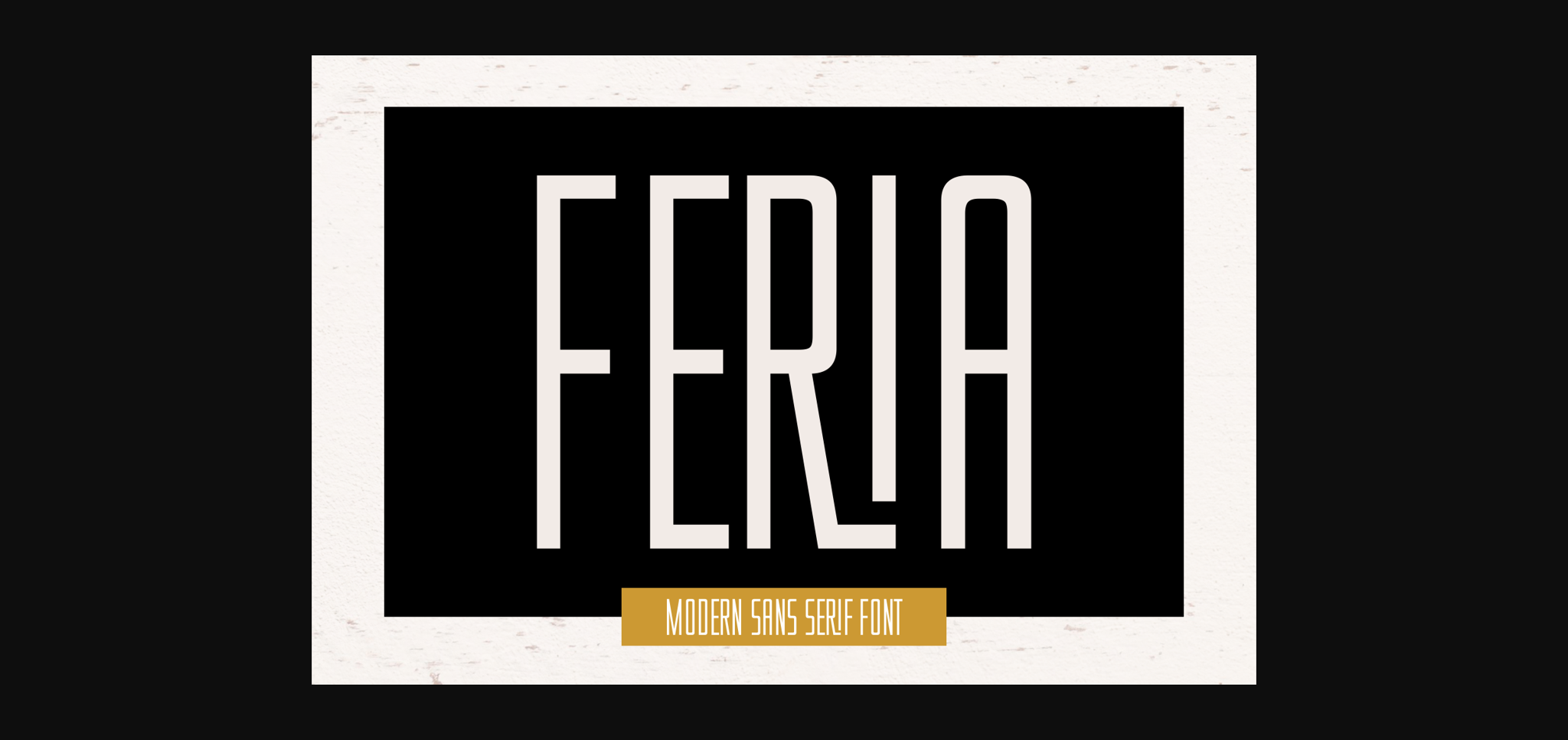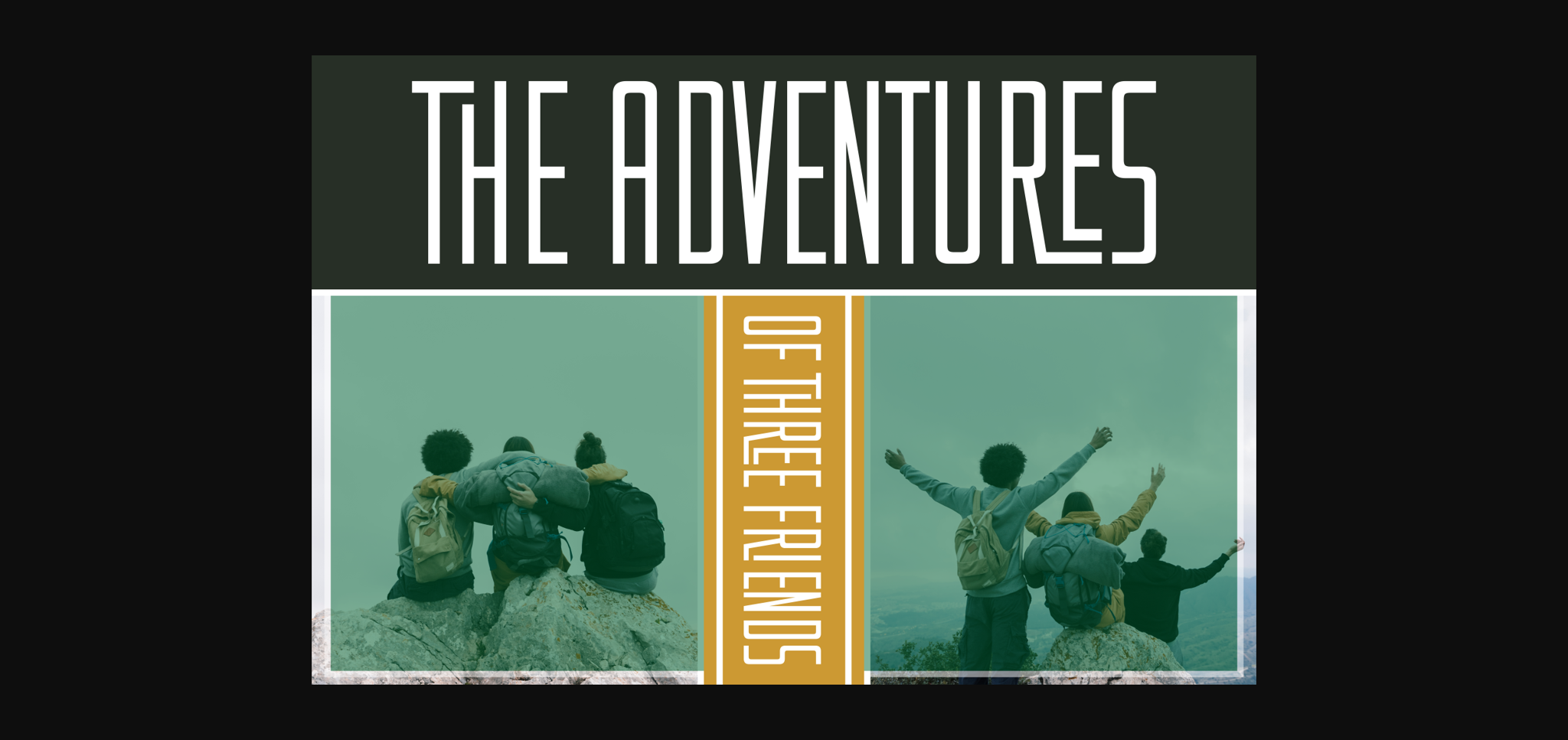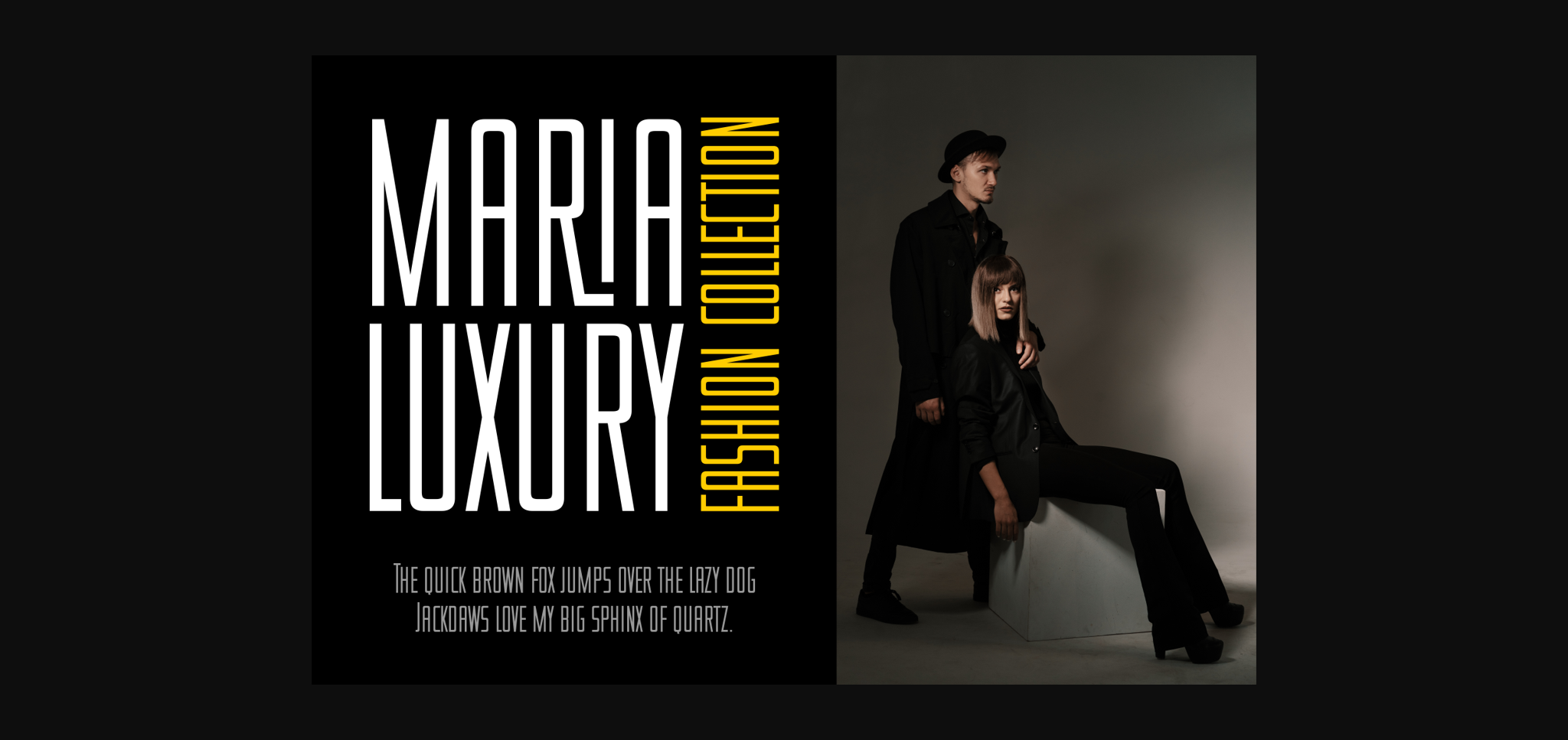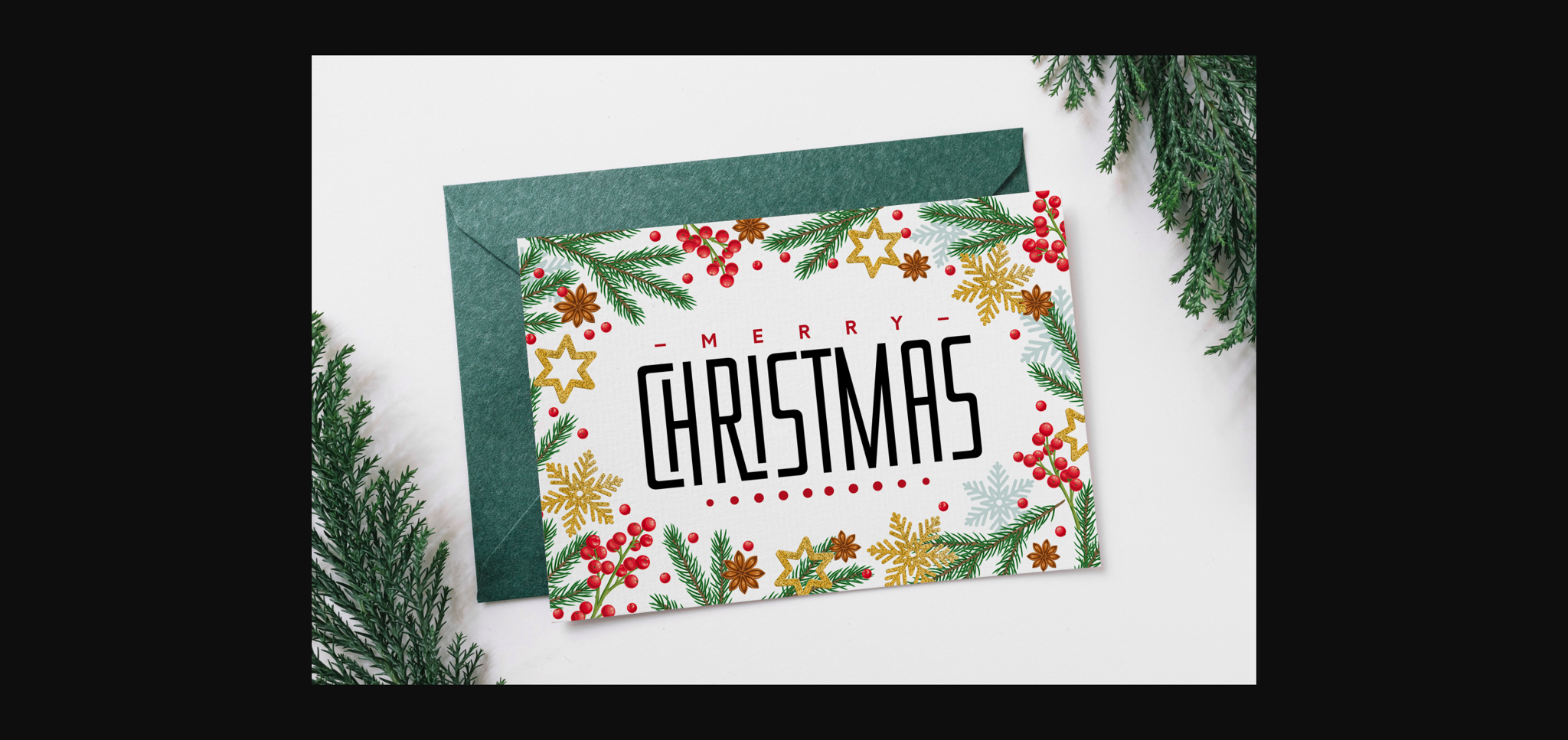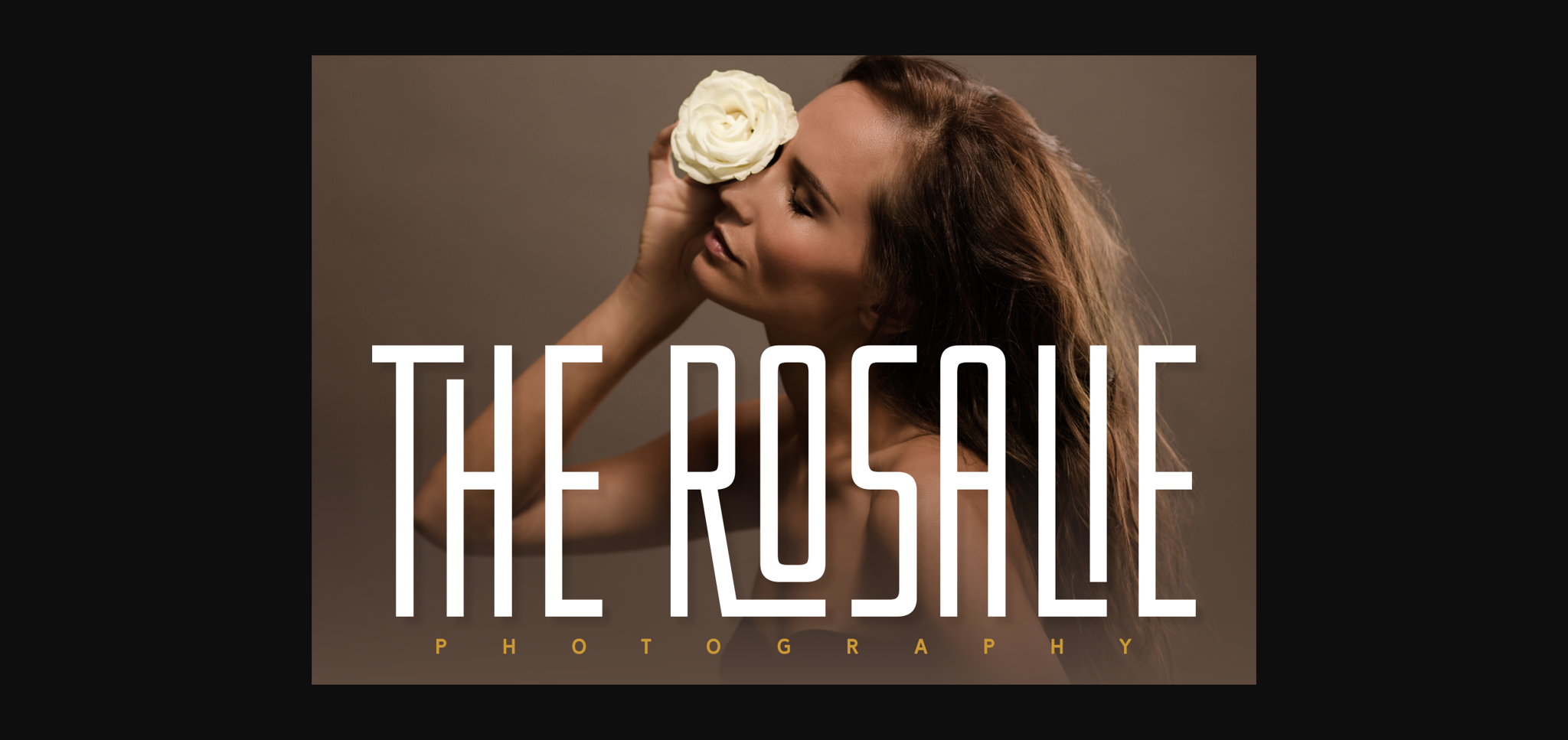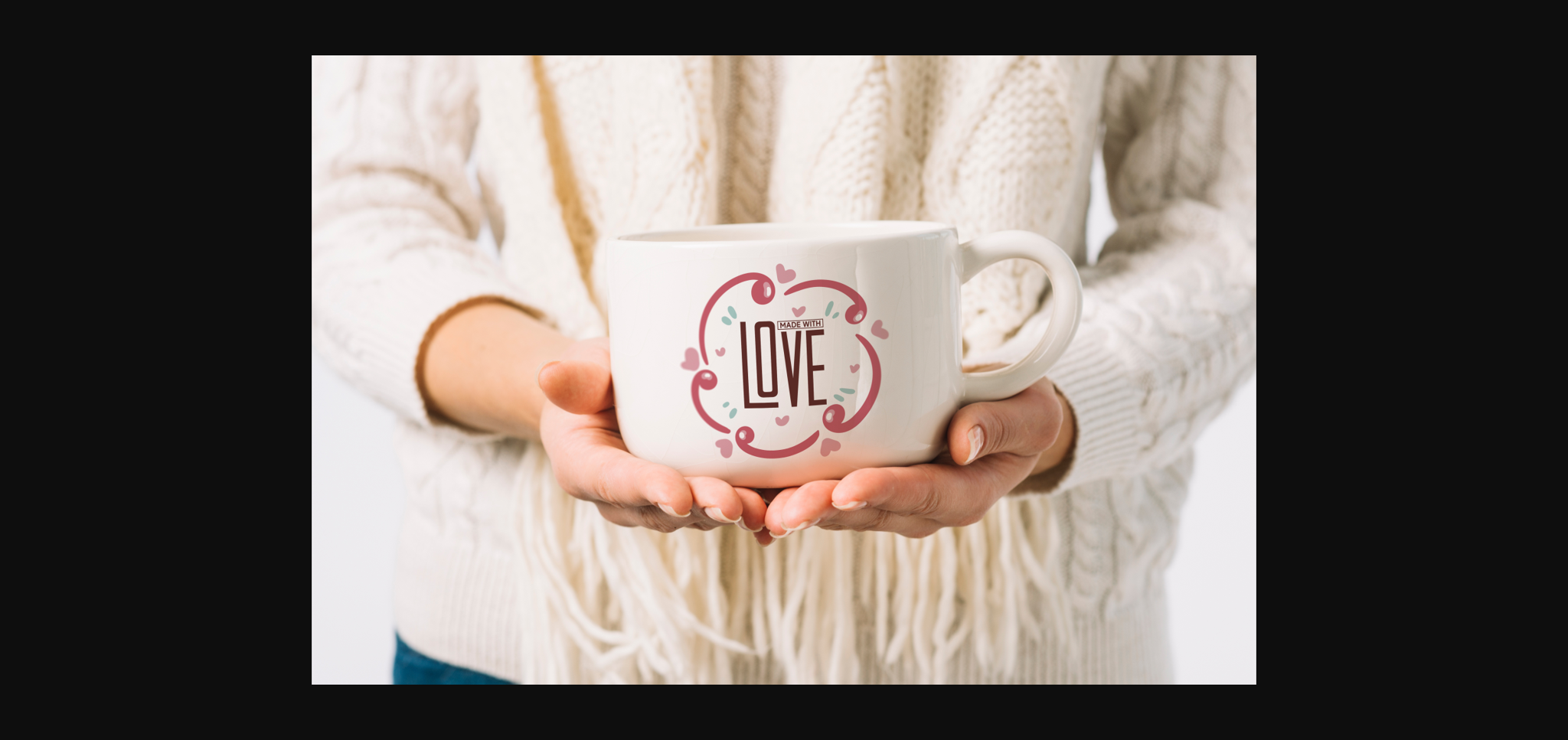
About Feria Font
Feria is a modern, easy-to-read sans serif font that conveys impeccable authenticity and style. Whether you’re using it for crafts, digital design, presentations, or making greeting cards, this font has the potential to become your favorite go-to font, no matter the occasion! This font is PUA encoded which means you can access all the glyphs and ligatures with ease!